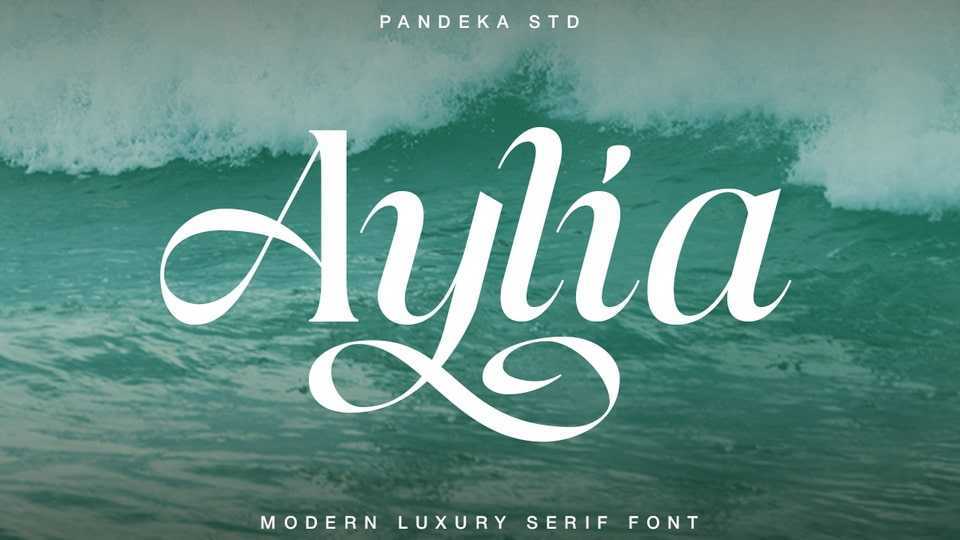
Download Aylia font, a luxurious serif typeface that combines seaside elegance with modern flair. Designed with smooth curves, flowing alternates, and a clean yet expressive structure.